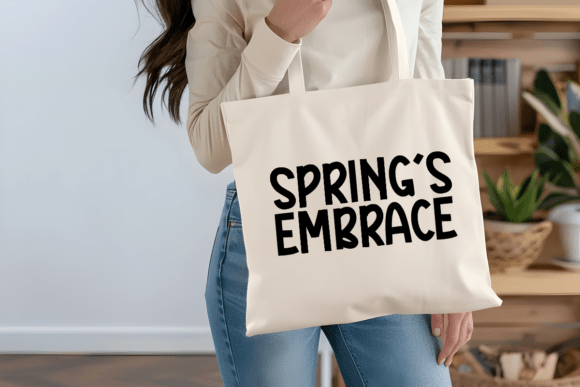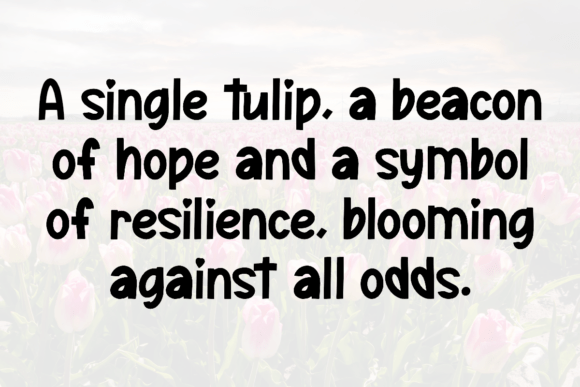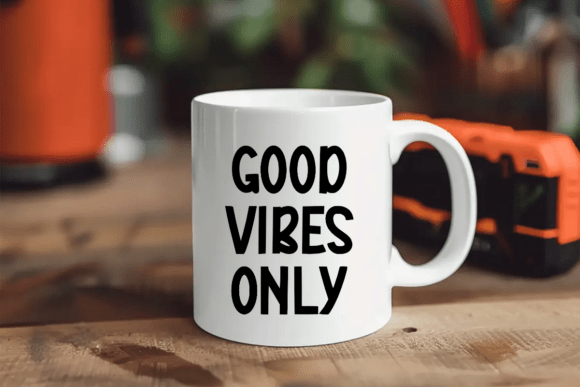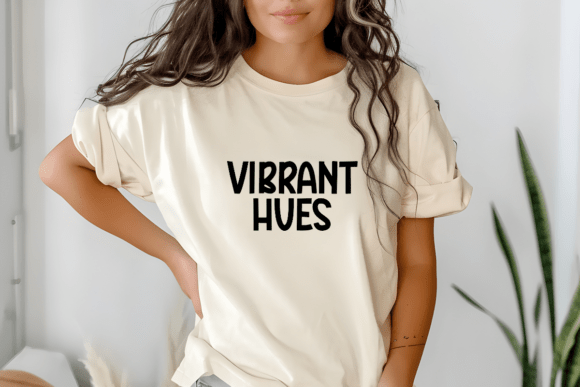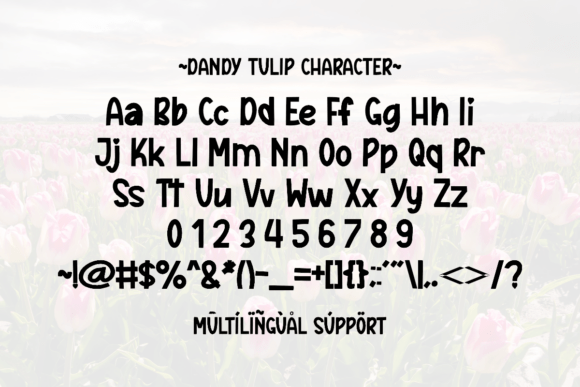
Dandy Tulip Font: The Perfect Choice for Playful and Friendly Designs
Are you looking for a font that can add a touch of playfulness and friendliness to your designs? Look no further than the Dandy Tulip font. This cute and quirky sans serif font is perfect for creating fun and engaging designs that radiate positivity. With its rounded curves and bouncy flow, Dandy Tulip is ideal for a wide range of design projects, from playful branding to children’s books and Instagram posts.
What Makes Dandy Tulip Font So Special?
Dandy Tulip font is a unique and charming typeface that stands out from the crowd. Its rounded curves and smooth lines give it a friendly and approachable feel, making it perfect for designs that need to convey a sense of warmth and approachability. The font’s quirky and playful vibe also makes it ideal for designs that require a bit of whimsy and fun.
Perfect for Playful Branding
When it comes to branding, the right font can make all the difference. Dandy Tulip font is perfect for playful branding projects that require a fun and friendly vibe. Whether you’re creating a logo, business cards, or packaging, this font is sure to add a touch of personality to your design. Its rounded curves and bouncy flow make it easy to read and recognize, making it perfect for creating a memorable brand identity.
Great for Children’s Books and Educational Materials
Dandy Tulip font is also perfect for children’s books and educational materials. Its playful and friendly vibe makes it ideal for creating engaging and interactive content that kids will love. The font’s rounded curves and smooth lines make it easy to read, even for early readers. Whether you’re creating a picture book, activity book, or educational materials, Dandy Tulip font is sure to delight kids and parents alike.
Ideal for Instagram Posts and Social Media
In today’s digital age, social media is an essential part of any designer’s toolkit. Dandy Tulip font is perfect for creating engaging and eye-catching Instagram posts and social media content. Its playful and friendly vibe makes it ideal for creating content that resonates with your audience and helps you build a strong online presence. Whether you’re creating graphics, quotes, or promotional content, Dandy Tulip font is sure to add a touch of personality to your design.
Key Features of Dandy Tulip Font
- Cute and quirky sans serif font: Dandy Tulip font is a unique and charming typeface that adds a touch of playfulness and friendliness to any design.
- Rounded curves and bouncy flow: The font’s rounded curves and smooth lines make it easy to read and recognize, making it perfect for creating engaging and interactive content.
- Perfect for playful branding: Dandy Tulip font is ideal for playful branding projects that require a fun and friendly vibe.
- Great for children’s books and educational materials: The font’s playful and friendly vibe makes it perfect for creating engaging and interactive content for kids.
- Ideal for Instagram posts and social media: Dandy Tulip font is perfect for creating engaging and eye-catching social media content that resonates with your audience.
How to Use Dandy Tulip Font in Your Designs
Using Dandy Tulip font in your designs is easy. Here are a few tips to get you started:
- Pair it with bold colors: Dandy Tulip font looks great paired with bold and bright colors. Try pairing it with colors like pink, blue, or yellow to create a fun and playful design.
- Use it for headings and titles: Dandy Tulip font is perfect for creating eye-catching headings and titles. Try using it to create bold and playful headings that grab your audience’s attention.
- Experiment with different sizes and styles: Dandy Tulip font comes in a range of sizes and styles. Experiment with different sizes and styles to create a unique and engaging design.
Dandy Tulip font is a unique and charming typeface that adds a touch of playfulness and friendliness to any design. With its rounded curves and bouncy flow, it’s perfect for playful branding, children’s books, Instagram posts, and anything that needs a lighthearted, friendly touch. Whether you’re a designer, craft, or social media enthusiast, Dandy Tulip font is sure to become a favorite in your toolkit.